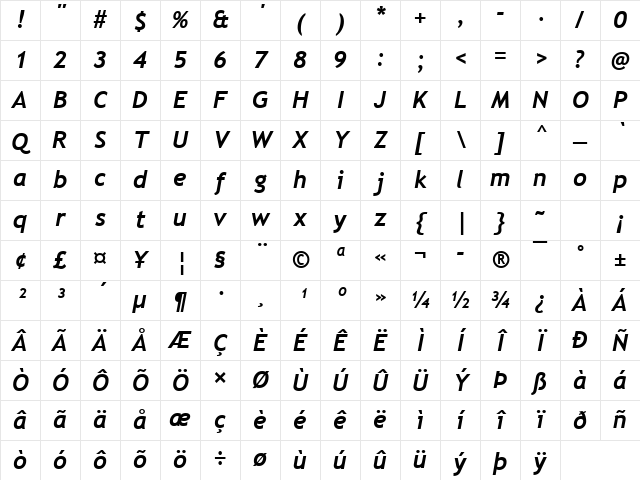
Trebuchet MS Bold Italic
Foundry: Microsoft Corp.
Designer: Vincent Connare
Design Context for Trebuchet MS
Trebuchet MS is a composed and adaptable typeface that performs quietly and consistently across a wide range of design contexts. The slanted form adds forward momentum and visual energy. Its bold stroke weight gives it real presence on the page.
Pro Tip: Use Trebuchet MS for emphasis, pull quotes, and subheadings where its slanted energy can add rhythm to the layout.
Who designed the Trebuchet MS Bold Italic font?